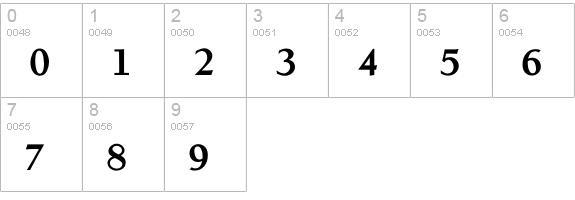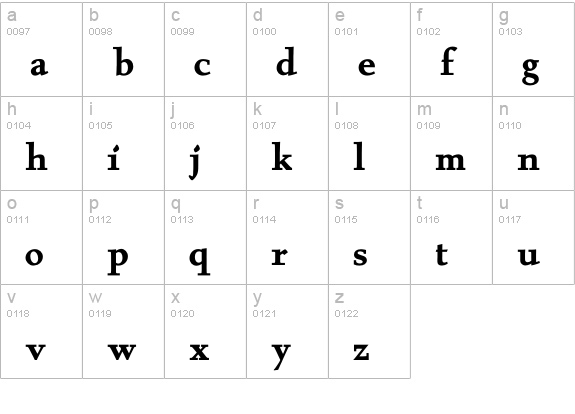
AlbertanBoldL Font Details
AlbertanBoldL is a striking and versatile font that exudes confidence and boldness. Its clean lines and strong presence make it perfect for headlines, logos, and other display purposes. This font combines classic elegance with a modern edge, making it a standout choice for any design project. What sets AlbertanBoldL apart is its unique ability to command attention while maintaining a sense of sophistication. The bold weight of the letters adds a sense of power and authority, making it ideal for making a statement. Whether you're designing a poster, creating branding materials, or crafting a website, AlbertanBoldL is sure to leave a lasting impression. The best part? AlbertanBoldL is completely free to download at FontsMarket.com. This means you can add this dynamic font to your collection without breaking the bank. Don't miss out on this opportunity to elevate your designs with the powerful presence of AlbertanBoldL. Download it today and take your projects to the next level.